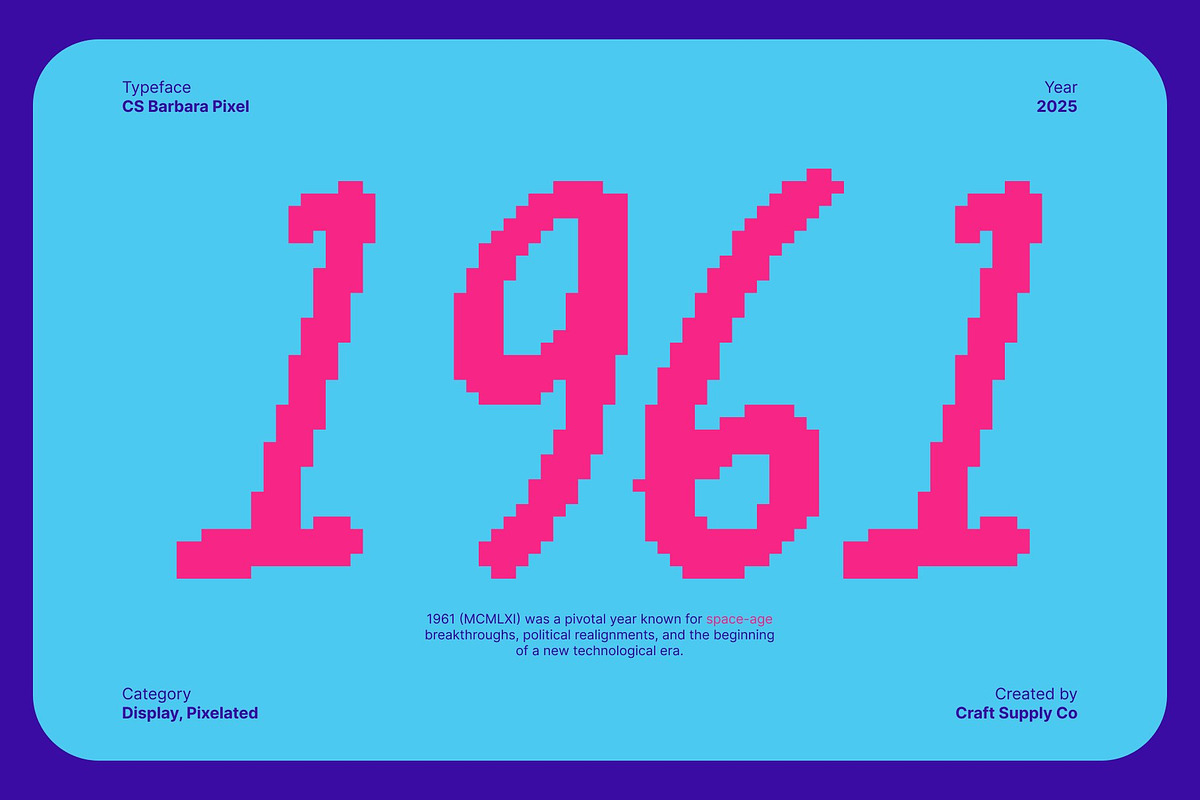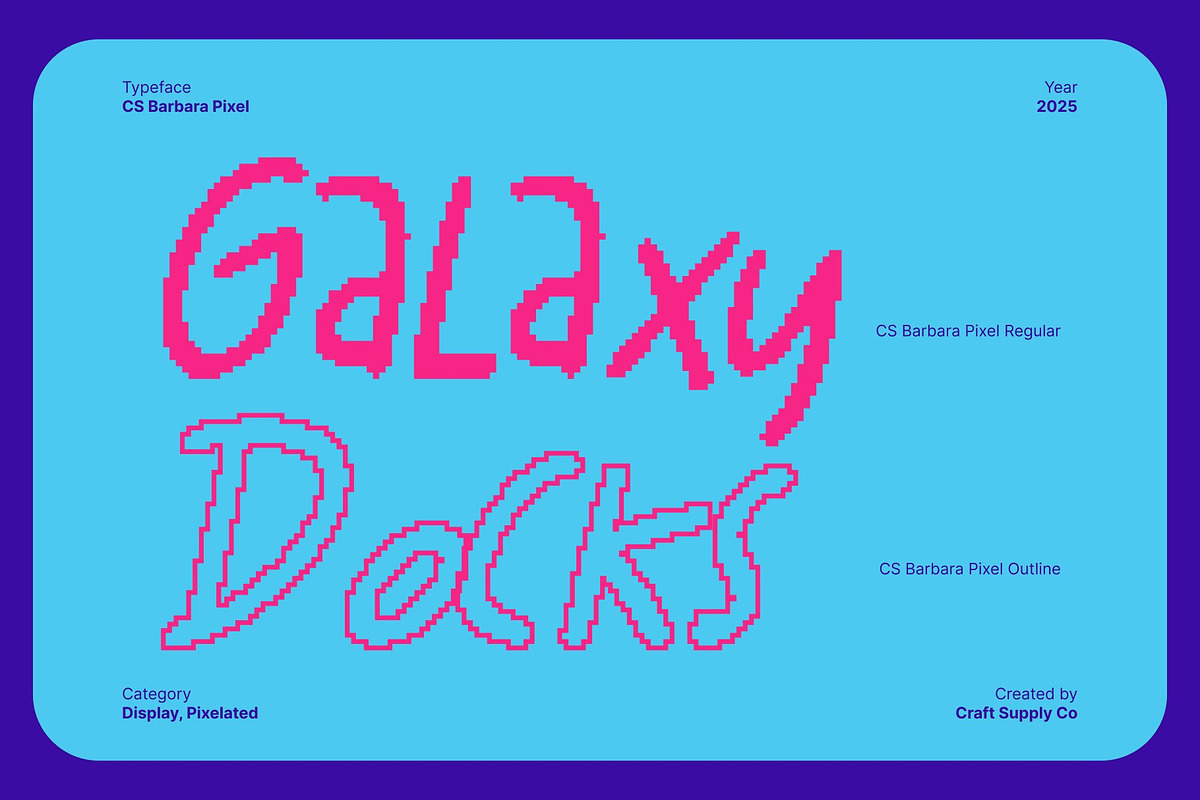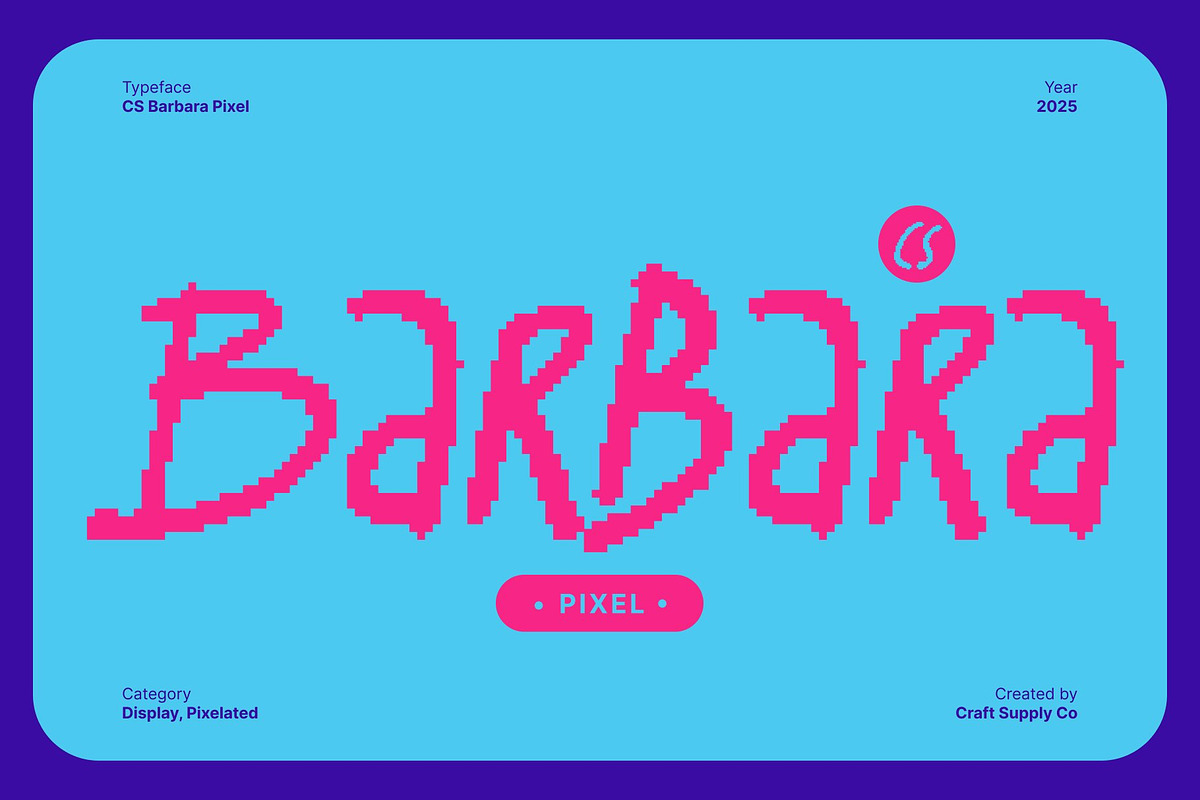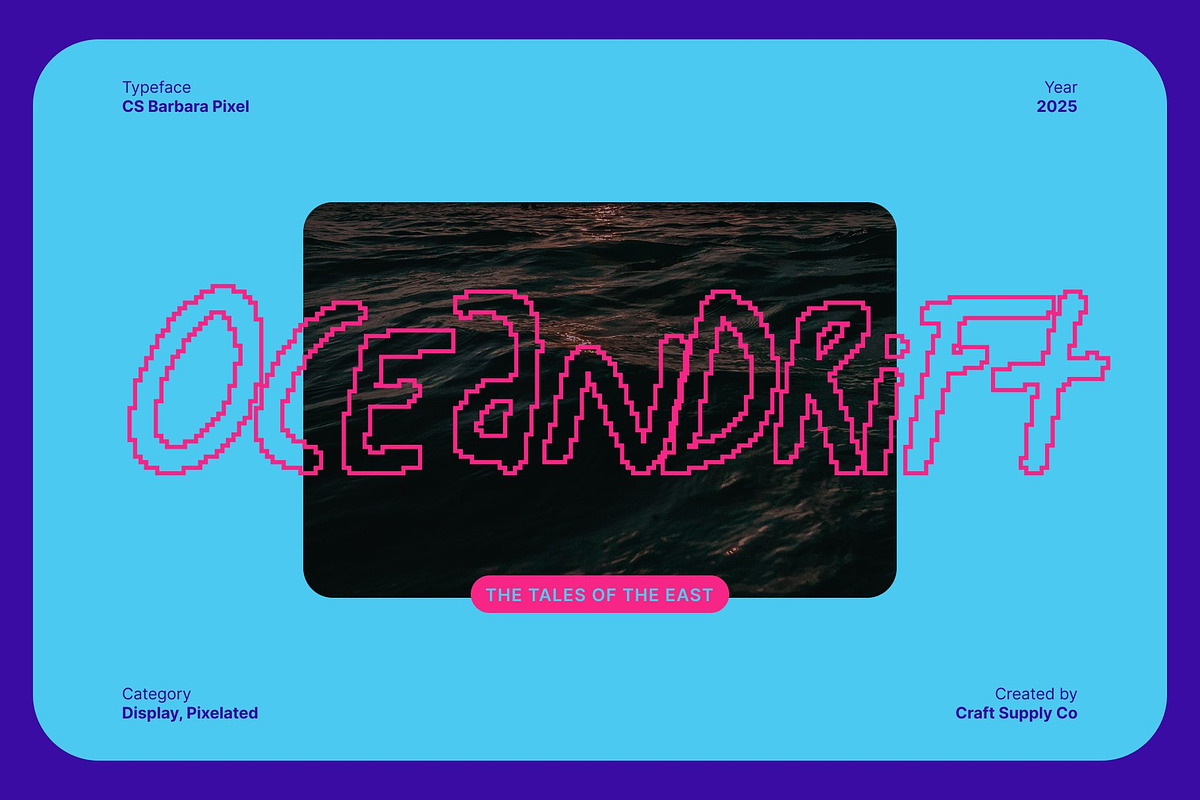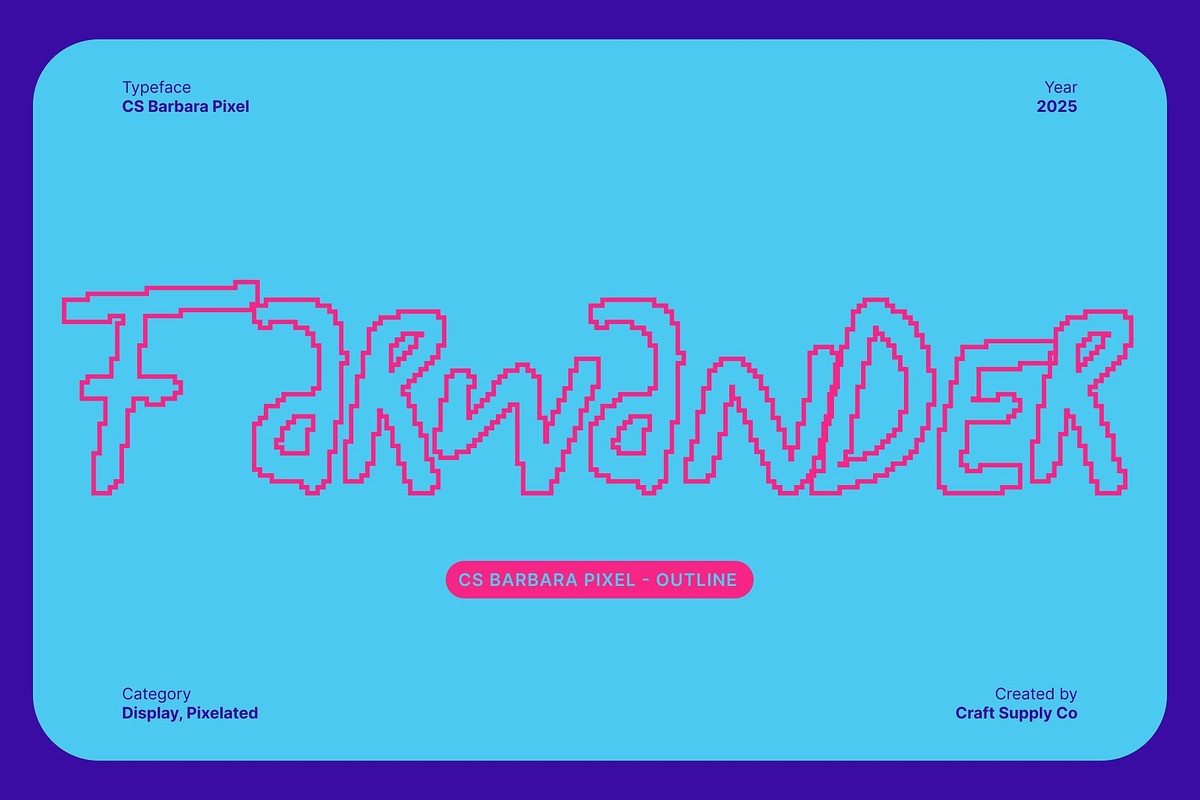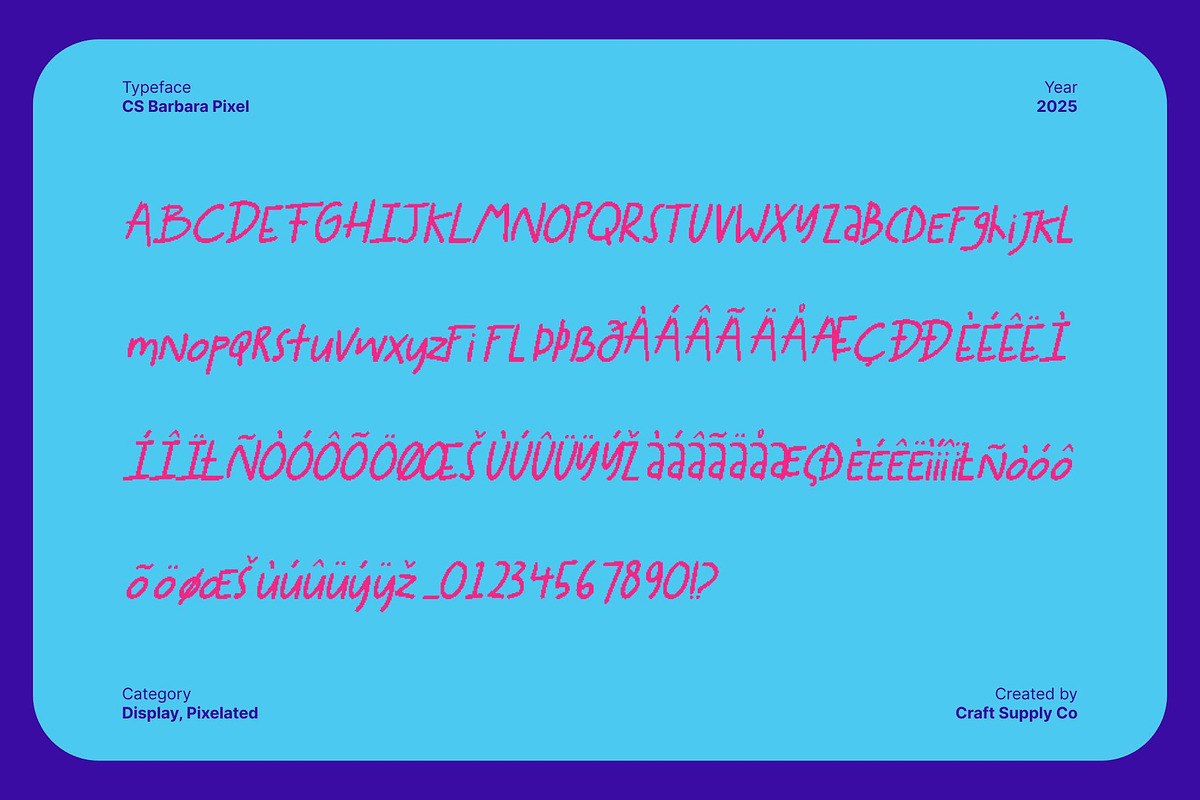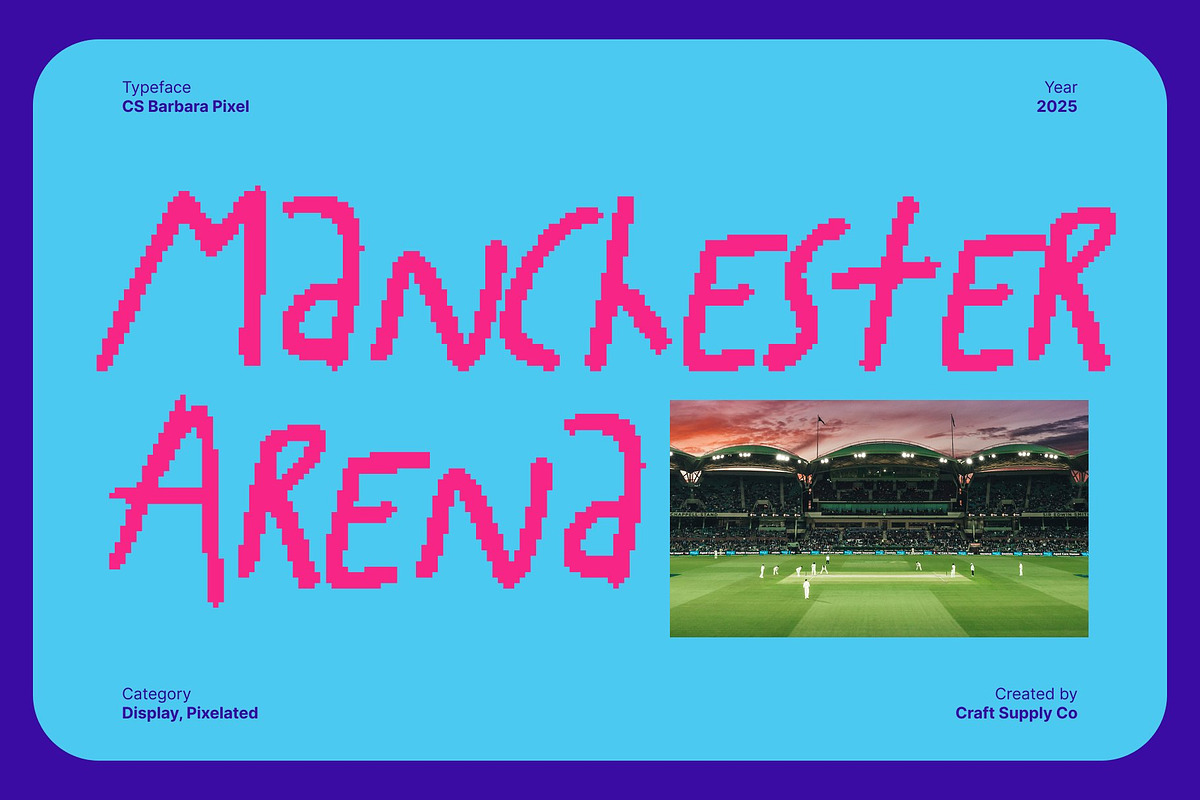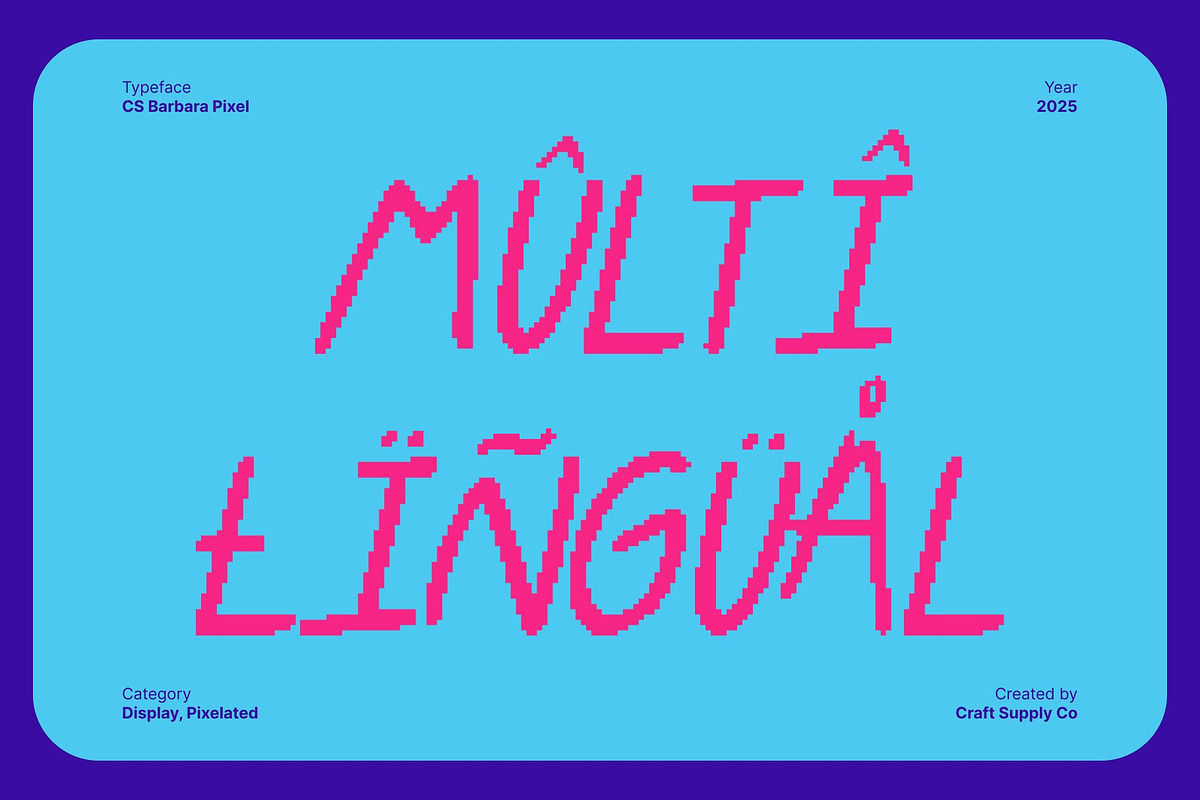
CS Barbara Pixel
CS Barbara Pixel – Cute Modern Pixel Handwritten Font
Pixelated Style with a Fresh Modern Twist This font blends the charm of classic pixel graphics with a clean modern feel. Its pixelated shapes give a subtle retro nod, but the overall structure feels fresh, neat, and contemporary. This balance creates a digital aesthetic that is both nostalgic and updated perfect for today’s creative projects that want a hint of classic flair.
Cute Handwritten Personality for Playful Expression What makes this font truly stand out is its handwritten influence. Each character carries soft, friendly strokes that add personality and charm to the pixel form. This combination results in a font that feels fun, cute, and approachable ideal for designs that want to radiate warmth and creativity.
Perfect for Digital, Playful, and Creative Designs Whether you’re creating posters, social media content, creative banners, or digital layouts, this font instantly adds a playful touch. Its modern pixel look makes it perfect for gaming-inspired visuals, kid-themed projects, or any design that embraces fun, imagination, and digital culture.
A Charming Choice for Branding and Visual Identity This font is also excellent for branding that aims to be memorable and character-driven. Its cute pixel style stands out in logos, packaging, and merch designs, offering a distinctive visual tone that’s both youthful and expressive.